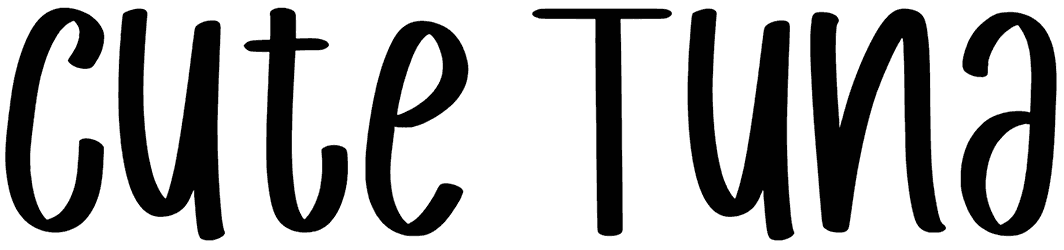
Cute Tuna Font
With the colorful characters, Cute Tuna font can take you to the world of children and toys. This hand-lettered and handwritten font can be used for many designs and projects related to kids. For example, it helps create postcards, drawing and painting notebooks, many stationery items, and designing birthday cards.